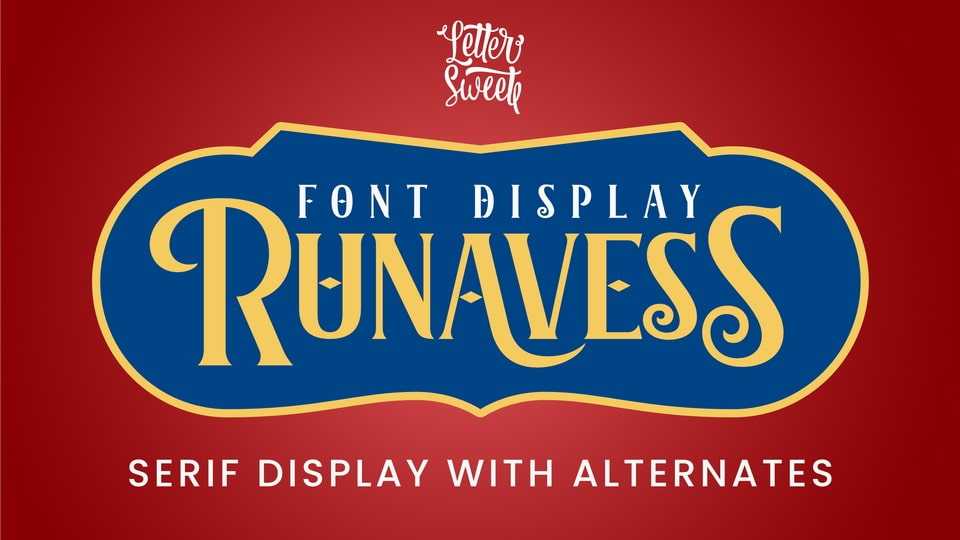
Download Runavess font, a serif display typeface that blends classic elegance with a bold, modern twist, designed with intricate details and strong letterforms.